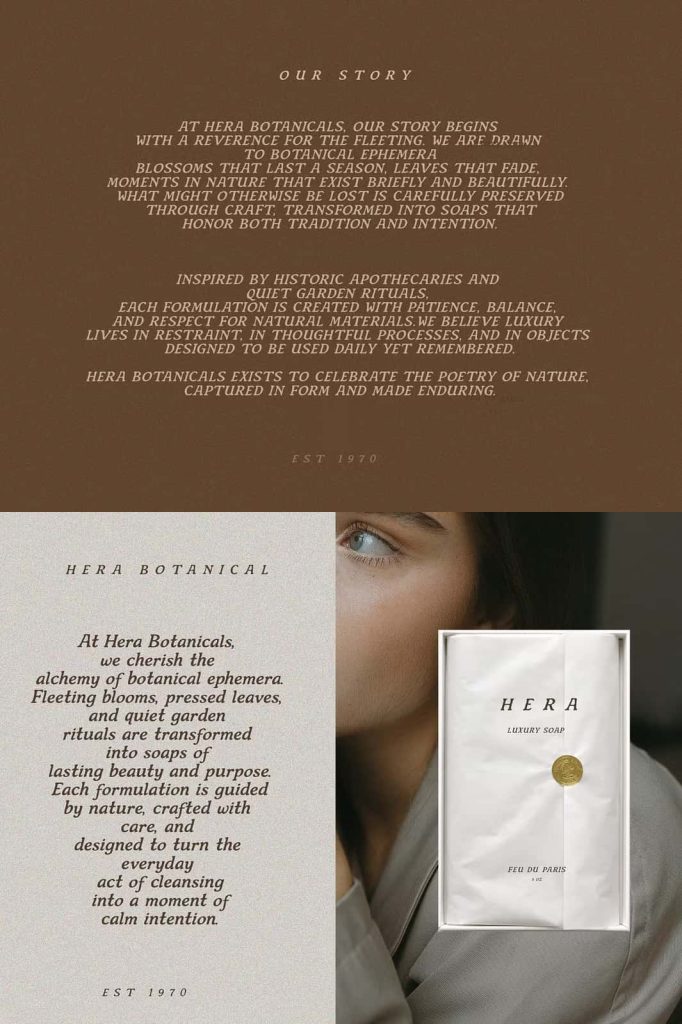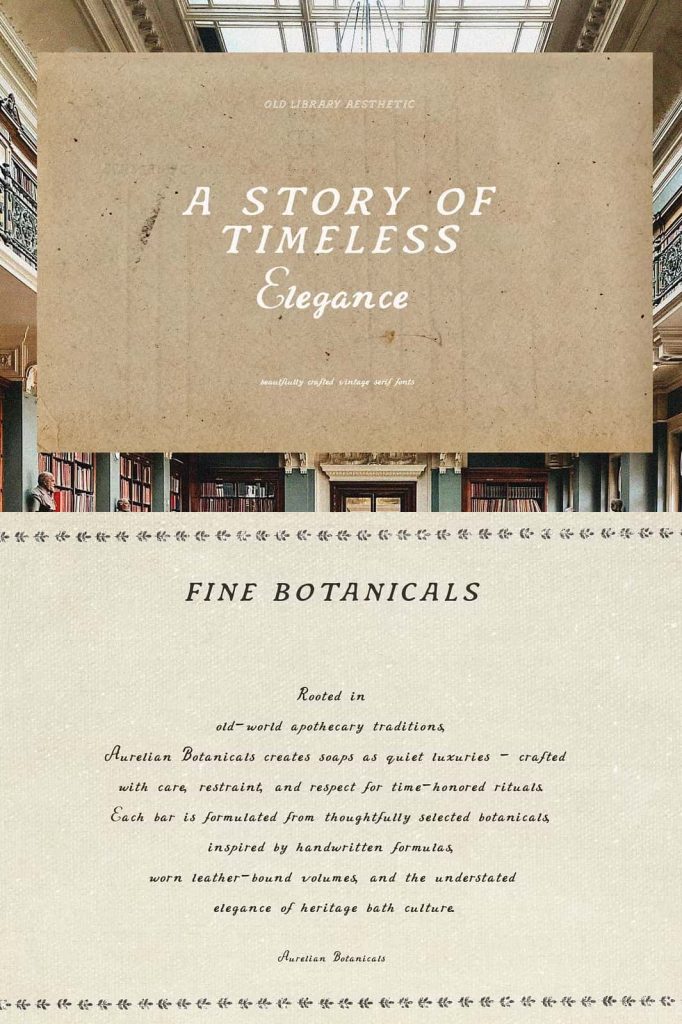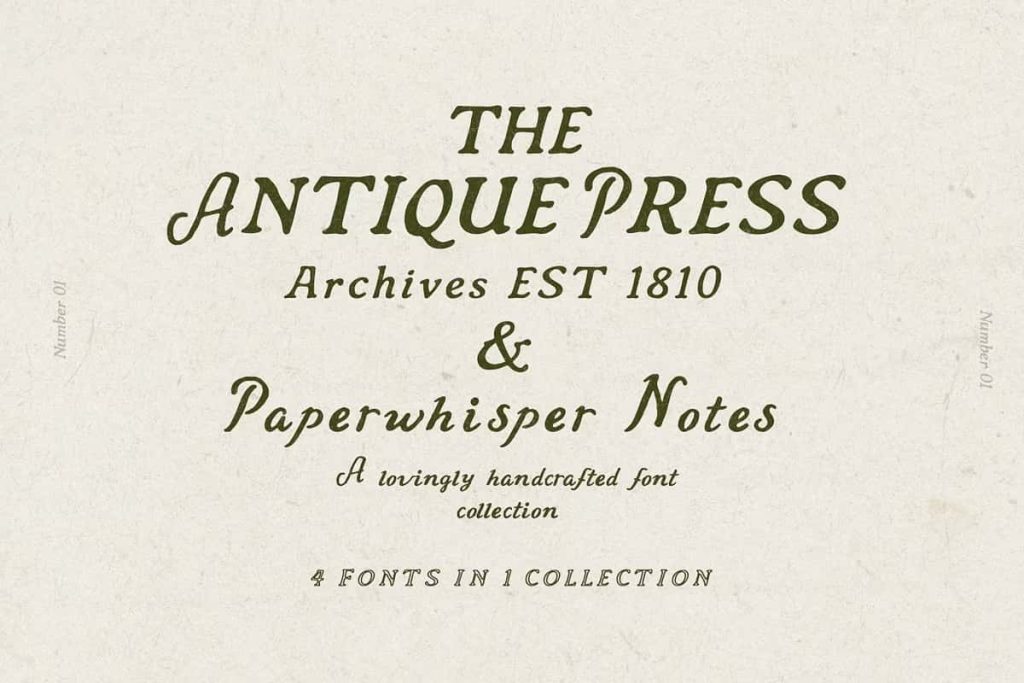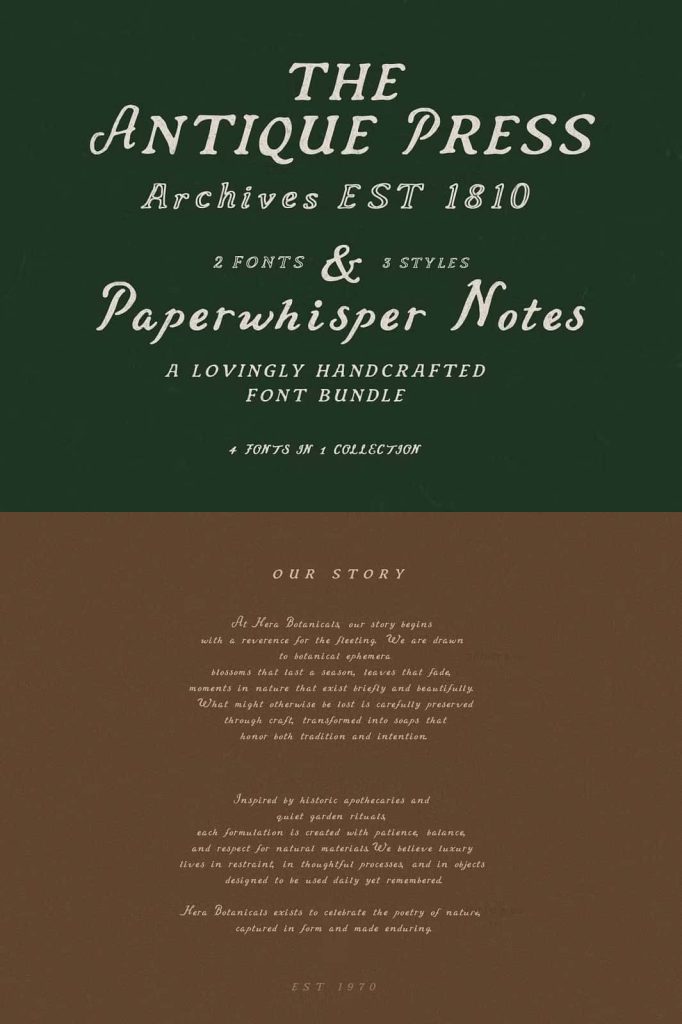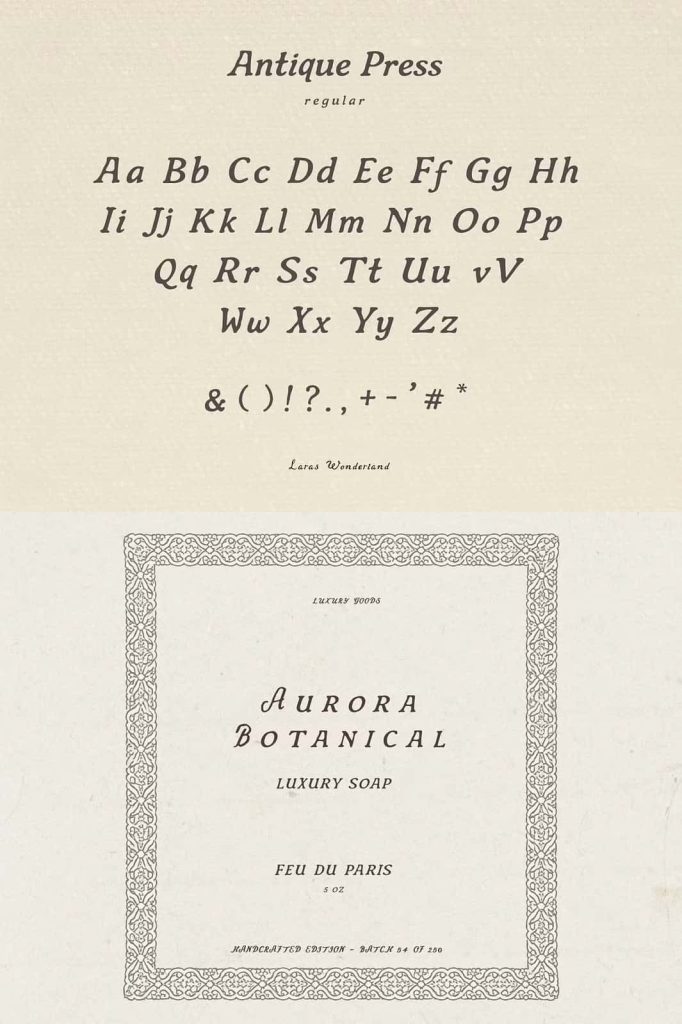
Antique Press & Paperwhisper Font Duo
Antique Press & Paperwhisper Font Duo is a carefully crafted typography collection that captures the timeless beauty of vintage printing and handwritten correspondence. Inspired by historic printing houses, heritage libraries, aged manuscripts, and handwritten notes tucked between the pages of antique books, this font duo brings together two complementary styles that create a rich and authentic visual experience.
The collection features Antique Press, a classic serif typeface designed with the character and elegance of traditional letterpress printing, alongside Paperwhisper, a natural handwritten script that adds warmth, personality, and a human touch. Together, they offer designers a versatile toolkit for creating sophisticated branding, editorial layouts, packaging, logos, book covers, and other creative projects that require both structure and authenticity.
Whether you are working on a heritage-inspired brand, a vintage-themed publication, or a creative project that celebrates classic craftsmanship, Antique Press & Paperwhisper provides the perfect balance between formal typography and expressive handwriting.
Antique Press: A Classic Serif Inspired by Traditional Letterpress Printing
Antique Press draws inspiration from the golden age of printmaking, when books, newspapers, and official documents were produced using carefully crafted letterpress techniques. Its refined serif structure reflects the elegance and authority of historical typography while maintaining excellent readability for modern applications.
The font includes three distinct styles: Regular, Bold, and Outline. Each variation offers unique creative possibilities, allowing designers to build strong visual hierarchies and create dynamic typography compositions. The Regular version delivers timeless sophistication, the Bold style creates powerful emphasis, and the Outline version adds decorative versatility for headlines and display purposes.
These styles work seamlessly together, making Antique Press an excellent choice for projects that require consistency, flexibility, and vintage character.
Paperwhisper: A Handwritten Script with Natural Charm
Paperwhisper introduces a softer and more personal dimension to the font duo. Inspired by handwritten notes found in old journals, library books, personal letters, and archival documents, this script font captures the beauty of authentic handwriting with elegant strokes and natural movement.
The handwritten style creates a sense of intimacy and storytelling that complements the structured appearance of Antique Press. Designers can use Paperwhisper for annotations, signatures, quotations, captions, decorative accents, and personal messages that require warmth and individuality.
Its organic flow helps create visual contrast while maintaining harmony with the serif counterpart, allowing both fonts to work together effortlessly across a wide range of design applications.
A Perfect Combination of Heritage and Personality
One of the greatest strengths of Antique Press & Paperwhisper Font Duo is the way both typefaces complement one another. Antique Press provides the authority, elegance, and historical foundation, while Paperwhisper adds emotion, authenticity, and handcrafted appeal.
This combination allows designers to create layered typography that feels rich, engaging, and visually balanced. By pairing strong serif headlines with handwritten accents, creative professionals can establish a distinctive identity that feels both professional and approachable.
The duo works particularly well for projects that focus on storytelling, heritage, craftsmanship, literature, history, and artistic expression.
Ideal Uses for Antique Press & Paperwhisper Font Duo
- Vintage and heritage branding projects
- Book covers and editorial publications
- Historical and literary-themed designs
- Luxury packaging and product labels
- Logo design and visual identity systems
- Wedding stationery and event invitations
- Quotes, annotations, and handwritten accents
- Posters, flyers, and promotional materials
- Museum, library, and cultural institution branding
- Creative social media graphics and marketing content
Designed for Authentic Storytelling
Typography plays a crucial role in communicating a brand’s story and personality. Antique Press & Paperwhisper helps designers build meaningful visual narratives by combining historical influences with handcrafted details. The fonts evoke feelings of nostalgia, craftsmanship, and authenticity while remaining highly functional for modern design requirements.
This makes the duo particularly valuable for businesses and creative professionals who want to establish a deeper emotional connection with their audience. Whether creating a vintage-inspired logo, publishing a book, or designing elegant packaging, these fonts help communicate quality, tradition, and attention to detail.
For designers who appreciate craftsmanship, heritage-inspired aesthetics, and timeless typography, Antique Press & Paperwhisper Font Duo is a valuable addition to any creative toolkit. It transforms ordinary text into meaningful visual communication while preserving the elegance and spirit of classic print culture.